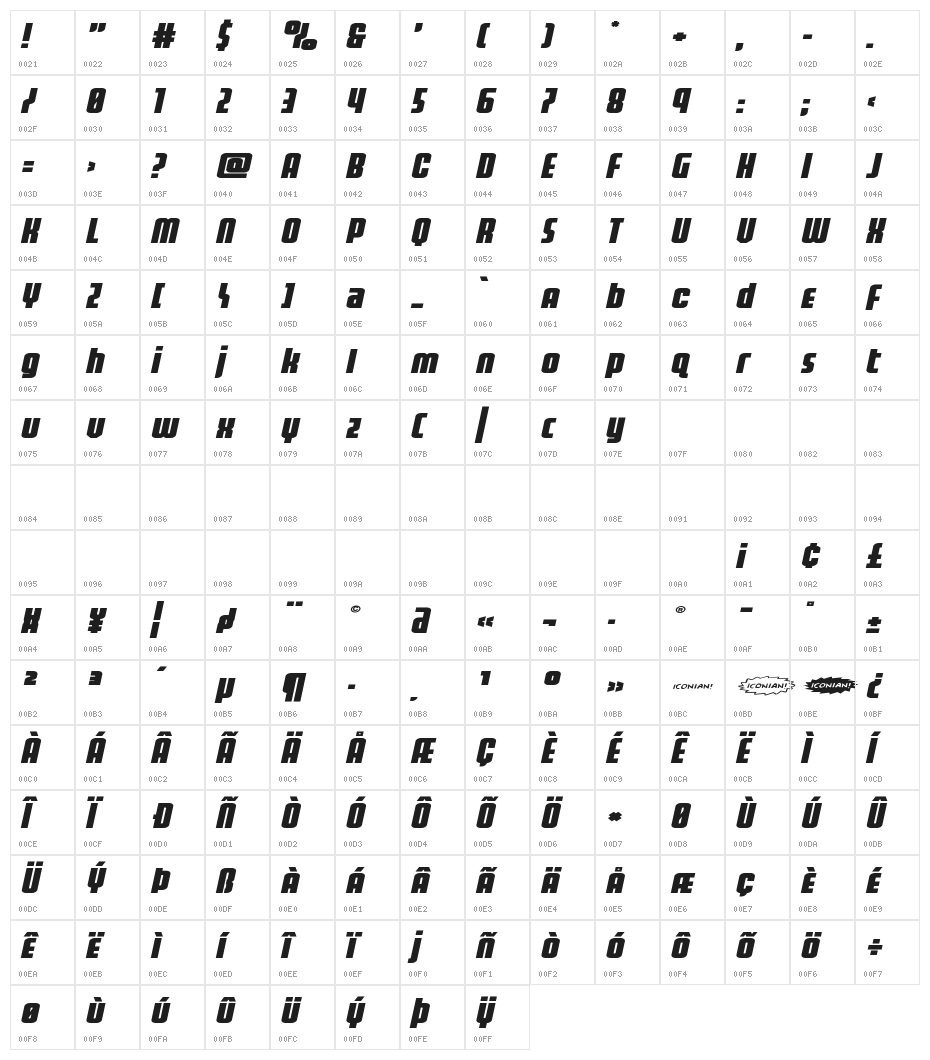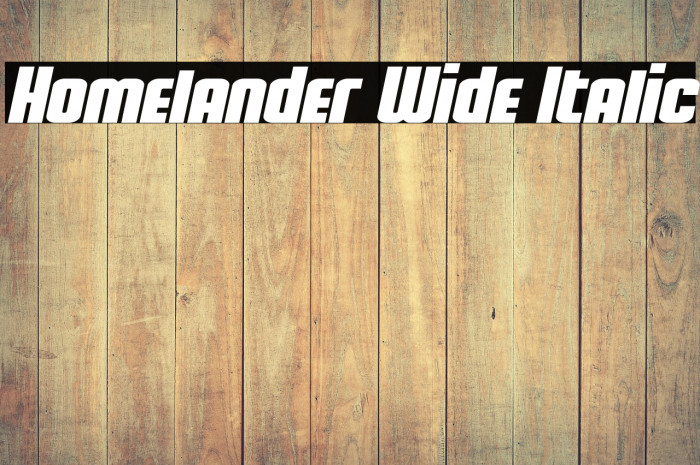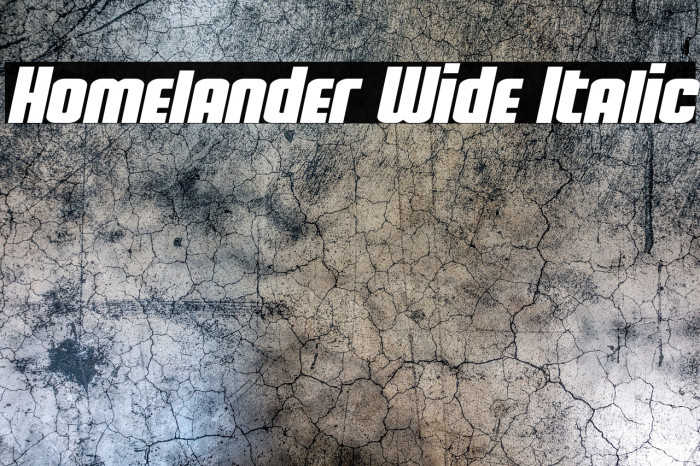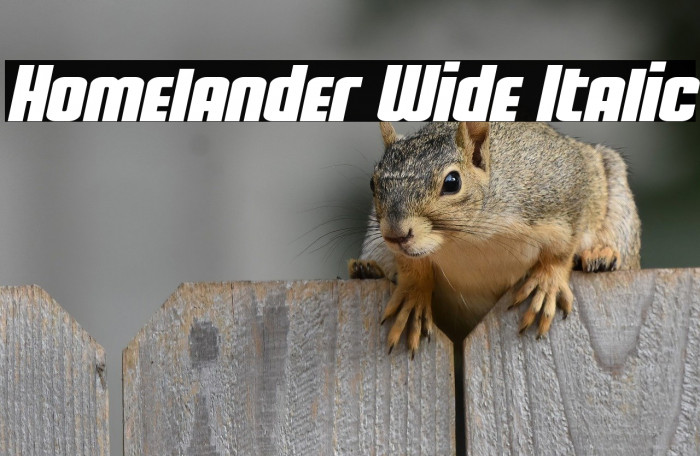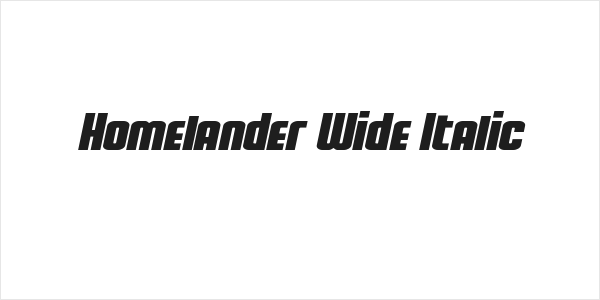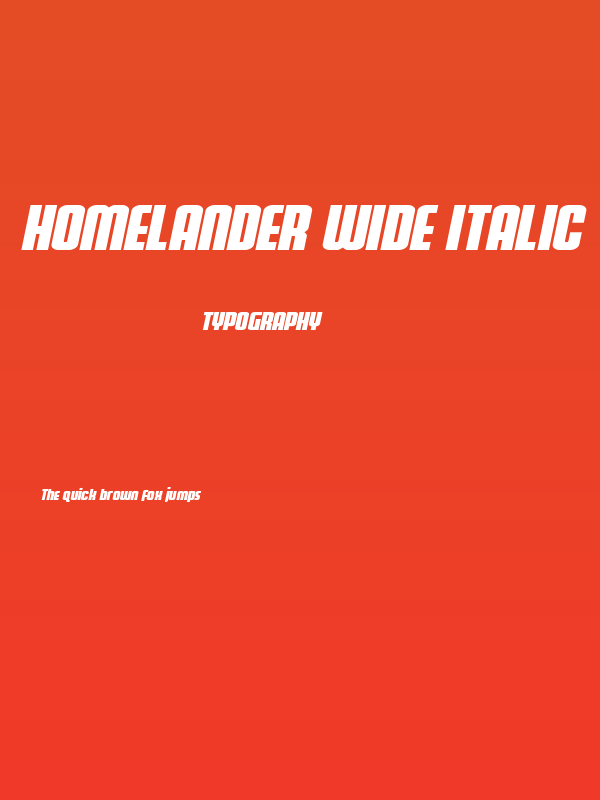
Homelander Wide Italic Font
Homelander Wide Italic Description
This font features a bold, italicized style with a wide stance, giving it a strong and impactful presence. The characters are designed with a modern flair, incorporating sharp angles and a slightly condensed form that enhances readability while maintaining a distinctive look. The uppercase and lowercase letters are consistent in style, with a uniform stroke width that adds to its bold appearance. The numerals and special characters are crafted to match the overall aesthetic, ensuring a cohesive look across all text elements. This font is ideal for making a statement, whether in headlines or logos, due to its eye-catching and assertive design.
| Proposed Projects | Ideal for headlines, branding, posters, and any project requiring a strong visual impact. |